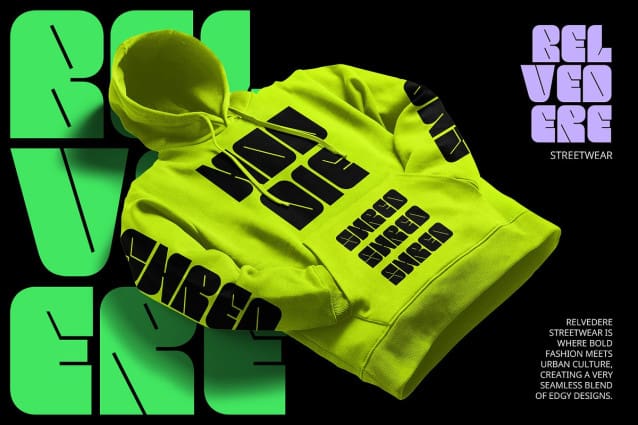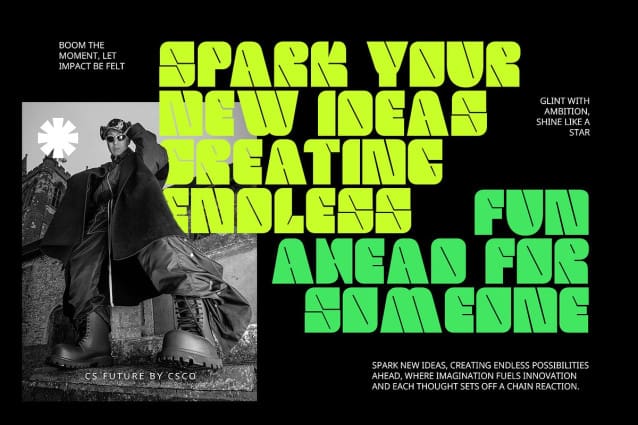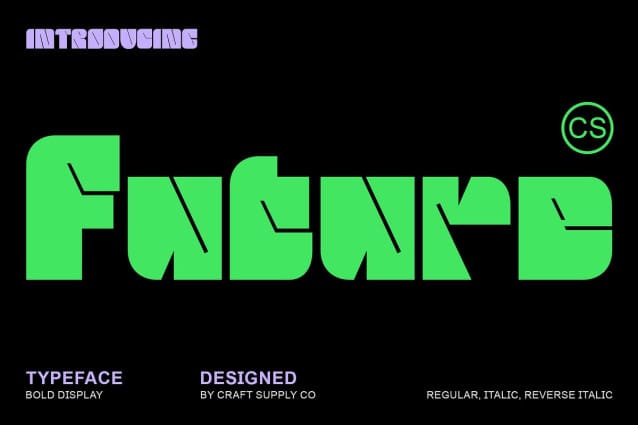
CS Future Font
CS Future Font is a modern display font that captivates with its bold and funky shape, offering a cheerful and eye-catching character. Its daring design features unconventional forms and playful elements, making it a standout choice for creative endeavors. This font exudes an energetic and fun impression, ensuring that it leaves a memorable mark on every project it graces.
Cheerful and Eye-Catching Character With its vibrant and colorful aesthetics, CS Future brings an element of joy and excitement to any design. The unique shapes and thickness of the letters create a dynamic visual experience that instantly draws attention. Whether used in headlines, titles, or promotional materials, this font communicates a sense of liveliness and creativity that resonates with audiences.
Versatile for Creative Projects CS Future is perfectly suited for a variety of creative projects, from posters and album covers to branding and promotional materials. Its versatility allows it to adapt seamlessly to different contexts, making it an ideal choice for designs that aim to highlight creativity and personality. The playful nature of this font enhances the overall visual message, ensuring your content stands out in any medium.